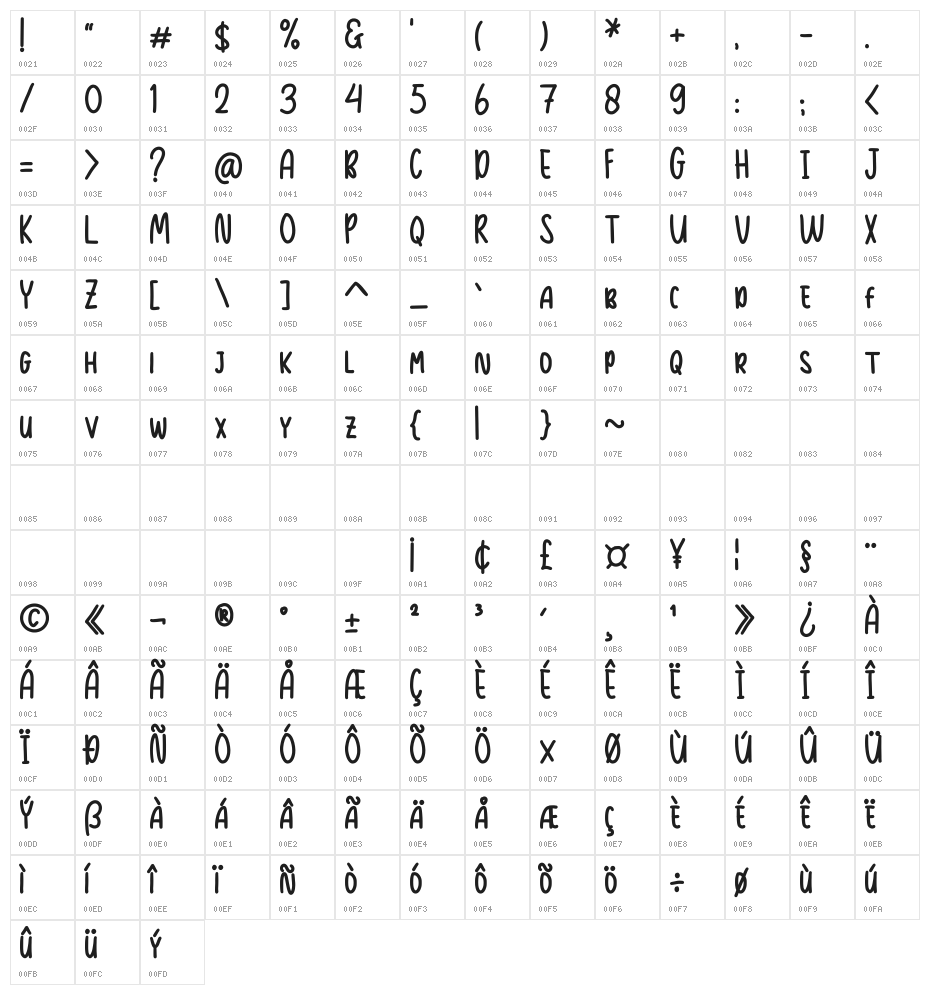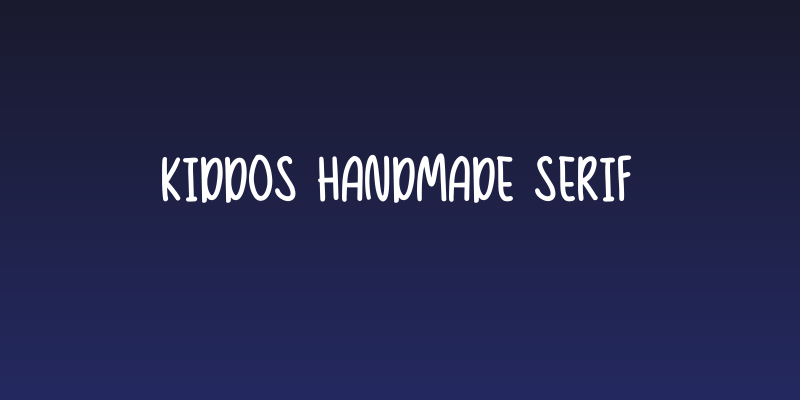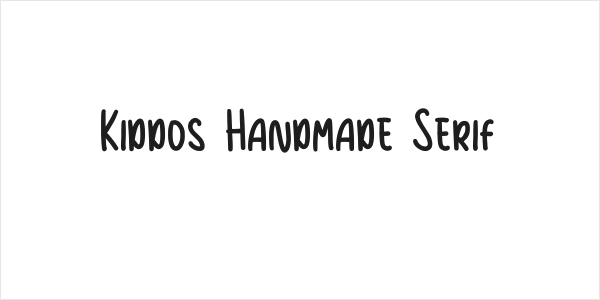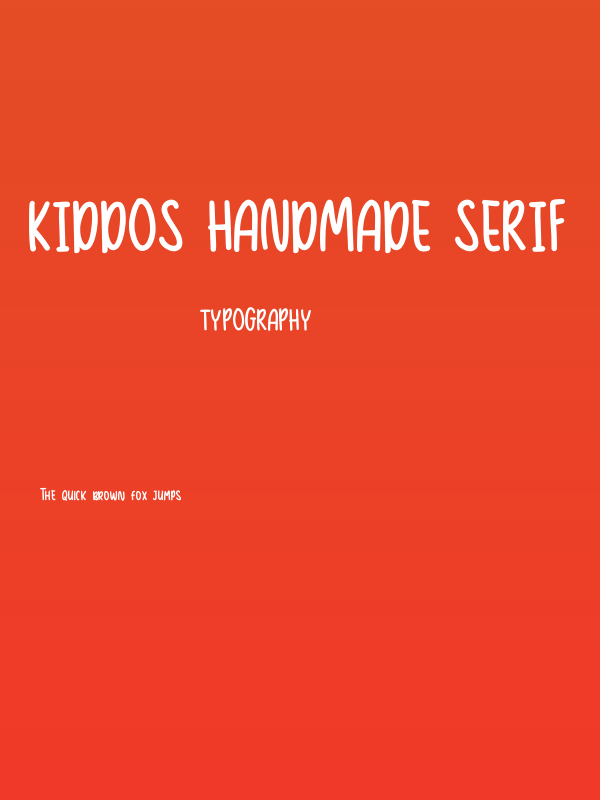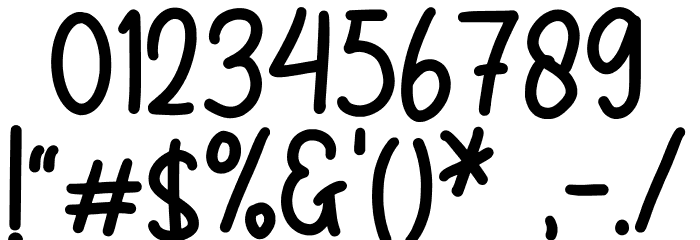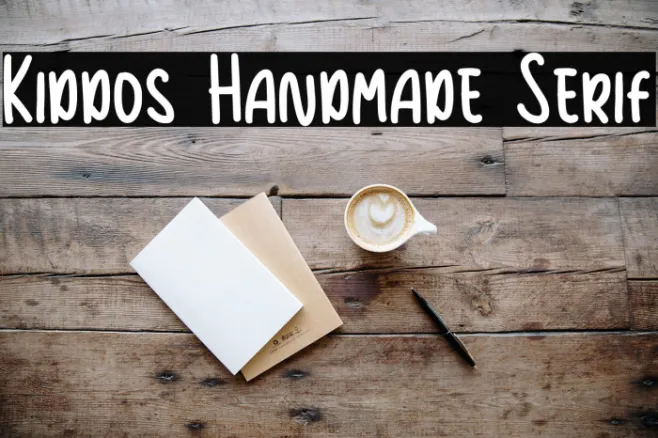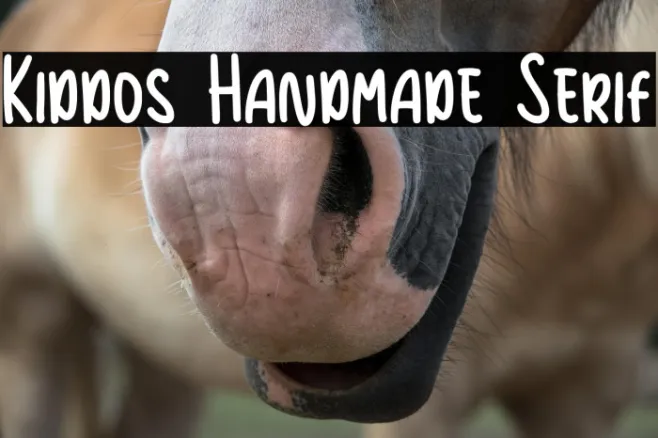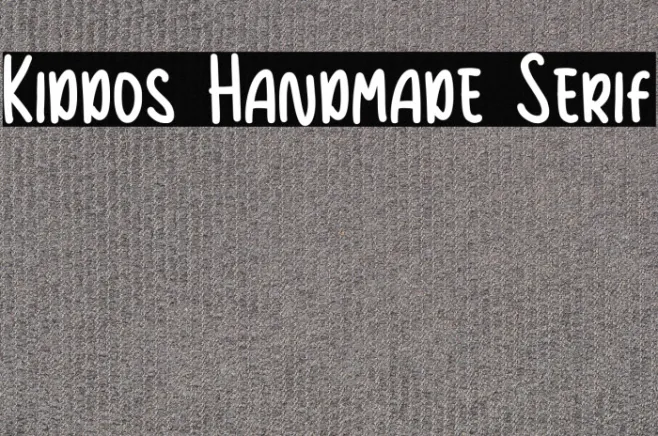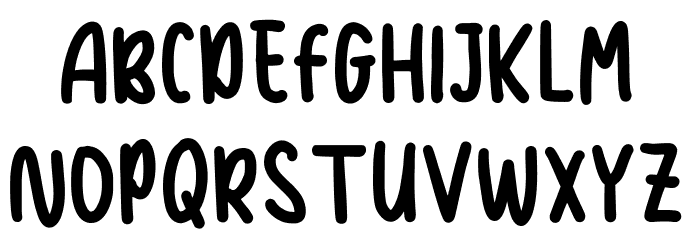
Kiddos Handmade Serif Font
Kiddos Handmade Serif Description
This font exudes a playful and whimsical charm, characterized by its bold, rounded letterforms that convey a sense of fun and creativity. The strokes are consistent in width, giving it a uniform appearance, while the slightly irregular shapes add a handmade feel. The uppercase and lowercase letters maintain a cohesive style, with smooth curves and a friendly demeanor. Numbers and special characters are crafted with the same playful touch, ensuring versatility across various uses. The overall design is approachable and lively, making it ideal for projects that require a personal and engaging touch.
| Overall Style | Playful, Handmade |
| Proposed Projects | Perfect for children's books, playful branding, greeting cards, and DIY projects. |